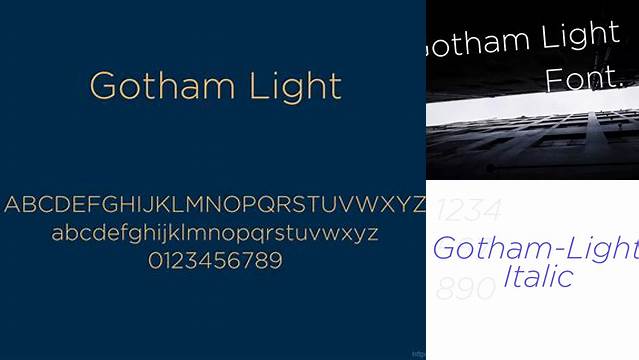
Hey guys! Are you looking for a sleek and modern font to elevate your design projects? Look no further! Gotham Light is a fantastic typeface that exudes sophistication and clarity, making it a popular choice for designers worldwide. In this comprehensive guide, we'll dive deep into the world of Gotham Light, exploring its characteristics, best uses, and, most importantly, how you can get your hands on a free download. So, buckle up and get ready to discover the beauty and versatility of Gotham Light!
What is Gotham Light?
Let's start with the basics. Gotham Light is a sans-serif typeface designed by Tobias Frere-Jones and Jesse Ragan in 2000. Inspired by the architectural signage of mid-century New York City, Gotham Light boasts a geometric and clean design that's both modern and timeless. Its simplicity and legibility make it an excellent choice for a wide range of applications, from branding and advertising to web design and editorial layouts. Gotham Light's clean lines and balanced proportions give it a contemporary yet classic feel, making it a versatile option for various design needs. Its understated elegance ensures that it never overpowers the content, instead enhancing it with its subtle sophistication. The font's neutrality also allows it to pair well with other typefaces, making it a valuable asset in any designer's toolkit. Whether you're working on a sleek corporate identity or a minimalist website design, Gotham Light can bring a touch of understated class to your project. So, if you're aiming for a modern, clean, and highly readable look, Gotham Light is definitely a font to consider. Its geometric precision and timeless appeal make it a standout choice for designers looking to create visually striking and easily accessible designs. The strong structure of the font also ensures clarity across different mediums, be it print or digital, making it a reliable choice for professional use.
Key Characteristics of Gotham Light
To truly appreciate Gotham Light, let's delve into its key characteristics. This font is characterized by its:
- Geometric Design: Its letterforms are based on simple geometric shapes, giving it a clean and modern look.
- Excellent Legibility: Gotham Light is highly legible in both print and digital formats, making it ideal for body text and headlines.
- Versatility: It works well in a variety of design contexts, from corporate branding to web design.
- Neutral Tone: Its neutral appearance allows it to blend seamlessly with other design elements.
- Multiple Weights: Gotham Light is part of a larger font family that includes various weights, from thin to black, offering flexibility in design.
The geometric design of Gotham Light is perhaps its most defining characteristic. Each letter is meticulously crafted from basic shapes like circles, squares, and triangles, resulting in a typeface that is both visually appealing and structurally sound. This geometric precision contributes to the font's modern aesthetic, making it a favorite among designers seeking a clean and contemporary look. The excellent legibility of Gotham Light is another crucial feature. Its clear and open letterforms ensure that text remains readable even at small sizes, making it a practical choice for body text as well as headlines. This legibility extends across different mediums, from printed materials to digital screens, ensuring a consistent reading experience for your audience. The versatility of Gotham Light is what makes it a true workhorse in the design world. It's equally at home in a corporate setting, where its professionalism and clarity shine, as it is in a creative project, where its modern aesthetic adds a touch of sophistication. This adaptability makes it a go-to font for designers working on diverse projects, from branding and advertising to web design and editorial layouts. The neutral tone of Gotham Light is another key factor in its versatility. It doesn't scream for attention; instead, it quietly supports the content, allowing other design elements to take center stage. This neutrality makes it easy to pair with other fonts and design elements, giving designers the freedom to create harmonious and balanced compositions. Finally, the availability of Gotham Light in multiple weights adds to its flexibility. With options ranging from thin to black, designers can create visual hierarchy and emphasis within their designs. This range of weights also makes it possible to use Gotham Light as the sole typeface in a project, creating a cohesive and unified look. In summary, Gotham Light's geometric design, excellent legibility, versatility, neutral tone, and multiple weights make it a standout choice for designers seeking a modern and functional typeface. Its ability to adapt to various design contexts while maintaining its clean and professional appearance is a testament to its enduring appeal.
Best Uses for Gotham Light
Now that we know what makes Gotham Light special, let's explore its best uses. This font shines in:
- Branding: Its clean and professional look makes it perfect for logos, business cards, and other branding materials.
- Web Design: Its legibility on screens makes it an excellent choice for website headers, body text, and navigation menus.
- Advertising: Its modern aesthetic can help your ads stand out and convey a sense of sophistication.
- Editorial Design: It works well in magazines, newspapers, and other publications, both in headlines and body text.
- Signage: Its clear letterforms ensure readability in signage and wayfinding systems.
Gotham Light's clean and professional look is particularly well-suited for branding purposes. A logo set in Gotham Light exudes a sense of modernity, reliability, and trustworthiness, making it an excellent choice for businesses looking to establish a strong and credible brand identity. Its simplicity ensures that the logo remains legible and impactful across various applications, from business cards to billboards. In web design, Gotham Light truly shines due to its exceptional legibility on screens. Its clear and open letterforms make it easy to read even at small sizes, ensuring a comfortable reading experience for website visitors. This makes it an ideal choice for website headers, body text, and navigation menus, where clarity and readability are paramount. Moreover, its modern aesthetic can enhance the overall visual appeal of a website, giving it a contemporary and professional look. Advertising is another area where Gotham Light can make a significant impact. In the competitive world of advertising, it's crucial to grab attention and convey a message effectively. Gotham Light's clean lines and modern aesthetic can help your ads stand out from the crowd and communicate a sense of sophistication and credibility. Whether you're designing print ads, online banners, or social media graphics, Gotham Light can help you create visually compelling and effective campaigns. In editorial design, Gotham Light is a versatile choice for both headlines and body text. Its legibility and clarity make it easy to read in long-form content, while its modern aesthetic adds a touch of sophistication to the overall design. Whether you're working on a magazine, newspaper, or book, Gotham Light can help you create a visually engaging and reader-friendly layout. Signage is another area where Gotham Light's clear letterforms and excellent legibility make it a practical choice. In signage and wayfinding systems, readability is paramount, and Gotham Light delivers on this front. Its clean and simple design ensures that signs are easy to read from a distance, helping people navigate their environment effectively. Its widespread use in signage across various urban landscapes is a testament to its practicality and effectiveness in this domain.
- Alternative Free Fonts: If you're on a tight budget, consider using alternative free fonts that share a similar aesthetic, such as Montserrat, Open Sans, or Lato. These fonts offer a clean, modern look that's reminiscent of Gotham Light.
Free Alternatives to Gotham Light
As we mentioned, Gotham Light is a commercial font, but don't despair! There are several fantastic free alternatives that capture a similar vibe. Here are a few of our favorites:
- Montserrat: A geometric sans-serif with a clean and modern feel.
- Open Sans: A highly legible sans-serif that works well in both print and digital.
- Lato: A stylish sans-serif with semi-rounded details that add warmth.
- Raleway: An elegant sans-serif with a slightly more refined appearance.
- Nunito: A well-balanced sans-serif with rounded terminals, giving it a friendly feel.
Montserrat is arguably the most popular free alternative to Gotham Light. Designed by Julieta Ulanovsky, this typeface shares the same geometric sans-serif characteristics, making it a great option for projects where you want a clean and modern look. Its versatility and legibility have made it a favorite among designers, and it's widely used in branding, web design, and advertising. Open Sans is another excellent choice for those seeking a Gotham Light alternative. Designed by Steve Matteson, Open Sans is known for its exceptional legibility, making it ideal for body text and other applications where clarity is essential. Its open letterforms and neutral appearance make it a versatile font that works well in a variety of design contexts. Lato, designed by Łukasz Dziedzic, offers a slightly different take on the geometric sans-serif. Its semi-rounded details add a touch of warmth and personality, making it a great option for projects where you want a font that's both modern and approachable. Lato's stylish appearance and excellent legibility have made it a popular choice for web design and branding. Raleway, designed by Matt McInerney, is a more elegant alternative to Gotham Light. Its refined appearance and slightly thinner strokes give it a sophisticated feel, making it a good choice for projects where you want to convey a sense of luxury or exclusivity. Raleway's versatility and stylish design have made it a favorite among designers working on high-end branding and editorial projects. Nunito, designed by Vernon Adams, is a well-balanced sans-serif with rounded terminals, giving it a friendly and approachable feel. Its rounded letterforms make it a great choice for projects where you want to create a welcoming and informal atmosphere. Nunito's versatility and readability have made it a popular choice for web design, particularly for websites targeting a younger audience. When choosing a free alternative to Gotham Light, it's essential to consider the specific needs of your project. Each of these fonts has its own unique characteristics, and some may be better suited for certain applications than others. By exploring these options, you can find a free font that captures the essence of Gotham Light while meeting your project's specific requirements. Remember to check the licensing terms of any free font before using it in a commercial project to ensure that you are complying with the designer's wishes.
Tips for Using Gotham Light (or its Alternatives)
Whether you're using Gotham Light or one of its free alternatives, here are some tips to help you make the most of it:
- Use it sparingly for emphasis: While Gotham Light is highly legible, using it too much can make your design feel monotonous. Use it strategically for headings, subheadings, and key phrases.
- Pair it with a contrasting font: To create visual interest, try pairing Gotham Light with a serif or script font.
- Pay attention to kerning and tracking: Proper kerning and tracking can significantly improve the readability and visual appeal of your typography.
- Experiment with different weights: The Gotham Light family includes various weights, so experiment with them to create hierarchy and emphasis.
- Consider the context: Choose the weight and style of Gotham Light that best suits the context of your design. For example, a lighter weight may be better for body text, while a bolder weight may be more appropriate for headlines.
When using Gotham Light or its alternatives, strategic use is key. While its legibility makes it tempting to use throughout a design, overusing it can lead to a monotonous and visually uninteresting layout. Instead, consider using it sparingly, reserving it for headings, subheadings, and key phrases where it can have the most impact. This approach helps to create a visual hierarchy and draws the reader's attention to the most important elements of your design. Pairing Gotham Light with a contrasting font is another effective way to create visual interest. Combining a sans-serif like Gotham Light with a serif or script font can add depth and personality to your typography. For example, pairing Gotham Light with a classic serif font like Times New Roman or a more modern serif like Playfair Display can create a sophisticated and balanced look. Similarly, combining it with a script font can add a touch of elegance or whimsy, depending on the script font you choose. Paying attention to kerning and tracking is crucial for achieving professional-looking typography. Kerning refers to the spacing between individual letters, while tracking refers to the overall spacing between all letters in a line of text. Proper kerning and tracking can significantly improve the readability and visual appeal of your typography. Take the time to adjust the kerning and tracking in your designs to ensure that the text is evenly spaced and easy to read. Experimenting with different weights within the Gotham Light family is a great way to create hierarchy and emphasis. The font family includes various weights, from thin to black, allowing you to create visual contrast and guide the reader's eye through the design. Use bolder weights for headlines and subheadings to make them stand out, and lighter weights for body text to ensure readability. Considering the context of your design is essential when choosing the appropriate weight and style of Gotham Light. The weight that works best for body text might be different from the weight that is most appropriate for headlines. Similarly, the overall style of your design should influence your font choice. A lighter weight may be better suited for body text in a corporate document, while a bolder weight may be more appropriate for headlines in a poster or advertisement. By carefully considering the context of your design, you can choose the weight and style of Gotham Light that will best enhance your message.